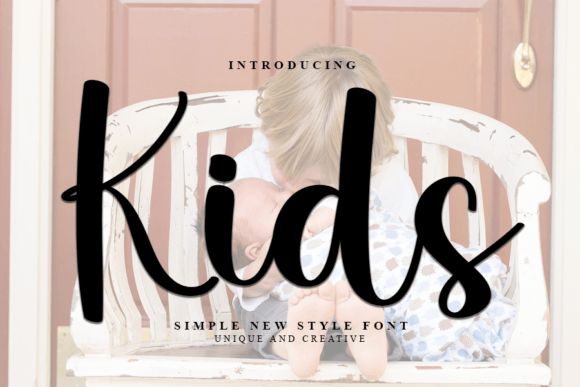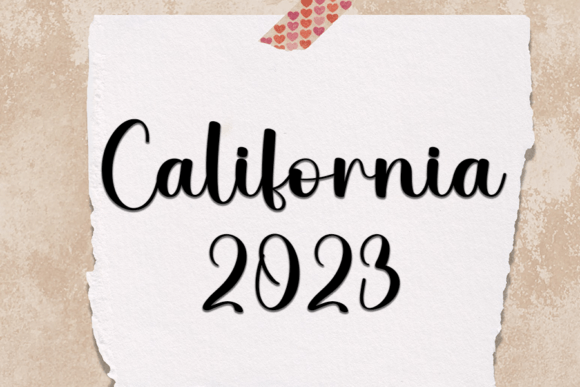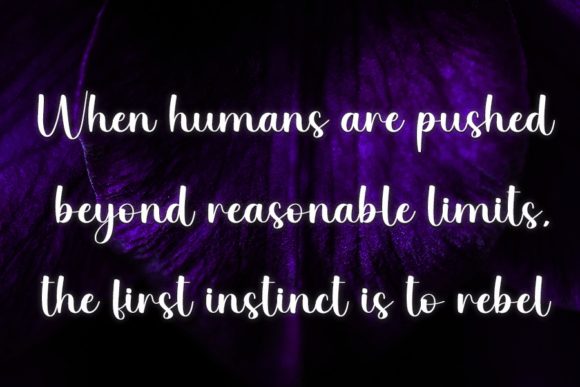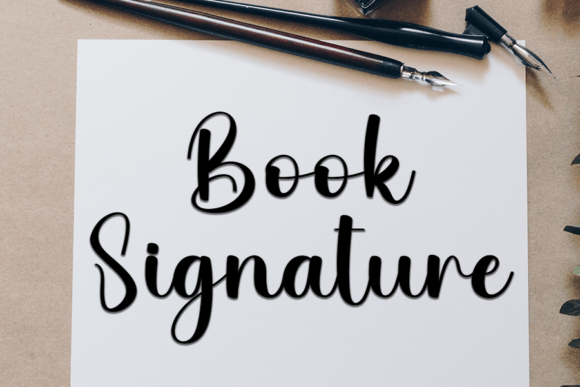
Kids Font
About Kids Font
Kids Font is a playful and charming script typeface designed to capture the joyful spirit of childhood. With its whimsical strokes and friendly curves, it brings life and energy to any creative project. Whether you’re working on crafts, posters, educational materials, or digital graphics, Kids Font adds personality and fun to your work.
Designed with smooth flow and quirky charm, this handwritten-style script font is both engaging and easy to read. It’s an ideal choice for projects aimed at children or anyone who appreciates playful, energetic typography.
Where to Use Kids Font
Kids Font’s versatility makes it perfect for a wide range of design applications. Here are some ideas for where you can use it:
• 🎨 Craft Projects: Ideal for DIY creations like scrapbooks, classroom decorations, or custom labels.
• 💌 Greeting Cards: Makes birthday cards, thank-you notes, and holiday greetings look extra special.
• 🧒 Children’s Books & Educational Materials: Adds a fun, friendly touch to worksheets, storybooks, and printables.
• 🌐 Digital Designs & Social Media: Stand out on platforms like Instagram, Pinterest, and Etsy with a unique font that’s full of character.
• 🎁 Packaging & Product Labels: Perfect for kids’ products, toys, snacks, or clothing tags.
• 📊 Presentations: Lightens the mood in school or educational presentations.
Key Features
• ✅ Handwritten Script Style: Crafted with care to reflect playful energy and creativity.
Why Choose Kids Font?
If you’re looking to add a touch of joy and movement to your typography, Kids Font is the perfect choice. It doesn’t just spell out words—it brings them to life. Each letter has been designed to look hand-drawn, giving it a personal, organic feel that audiences love, especially in designs meant for young viewers.
Whether you’re a designer, teacher, crafter, or parent working on a fun project, this font adds that special “kid energy” your work needs.
Kids Font is more than just a font—it’s a celebration of fun, imagination, and creativity. With its unique personality and versatile style, it’s a must-have for any font collection focused on youthful, joyful designs.